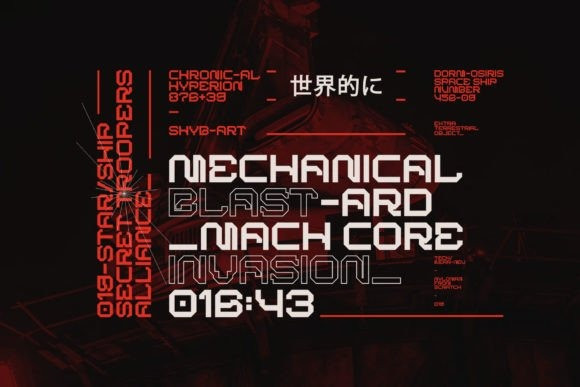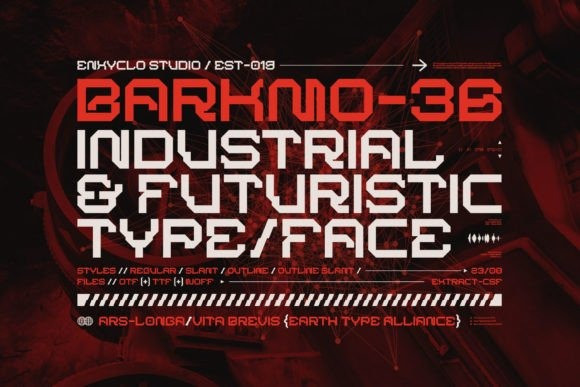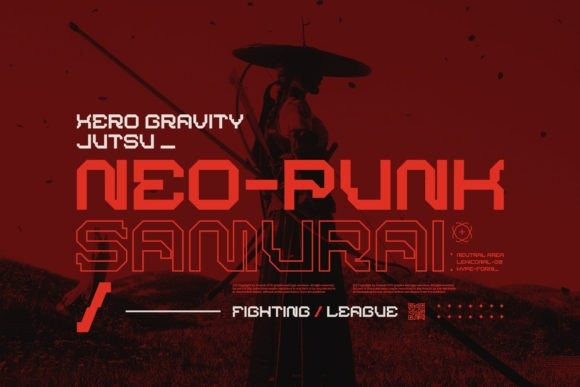
Barkmo36 Futuristic Font
Barkmo36 Futuristic Font is an industrial and futuristic display typeface. Its distinct and assertive character makes this font a masterpiece. Fall in love with its incredibly unique style and use it to create spectacular designs!